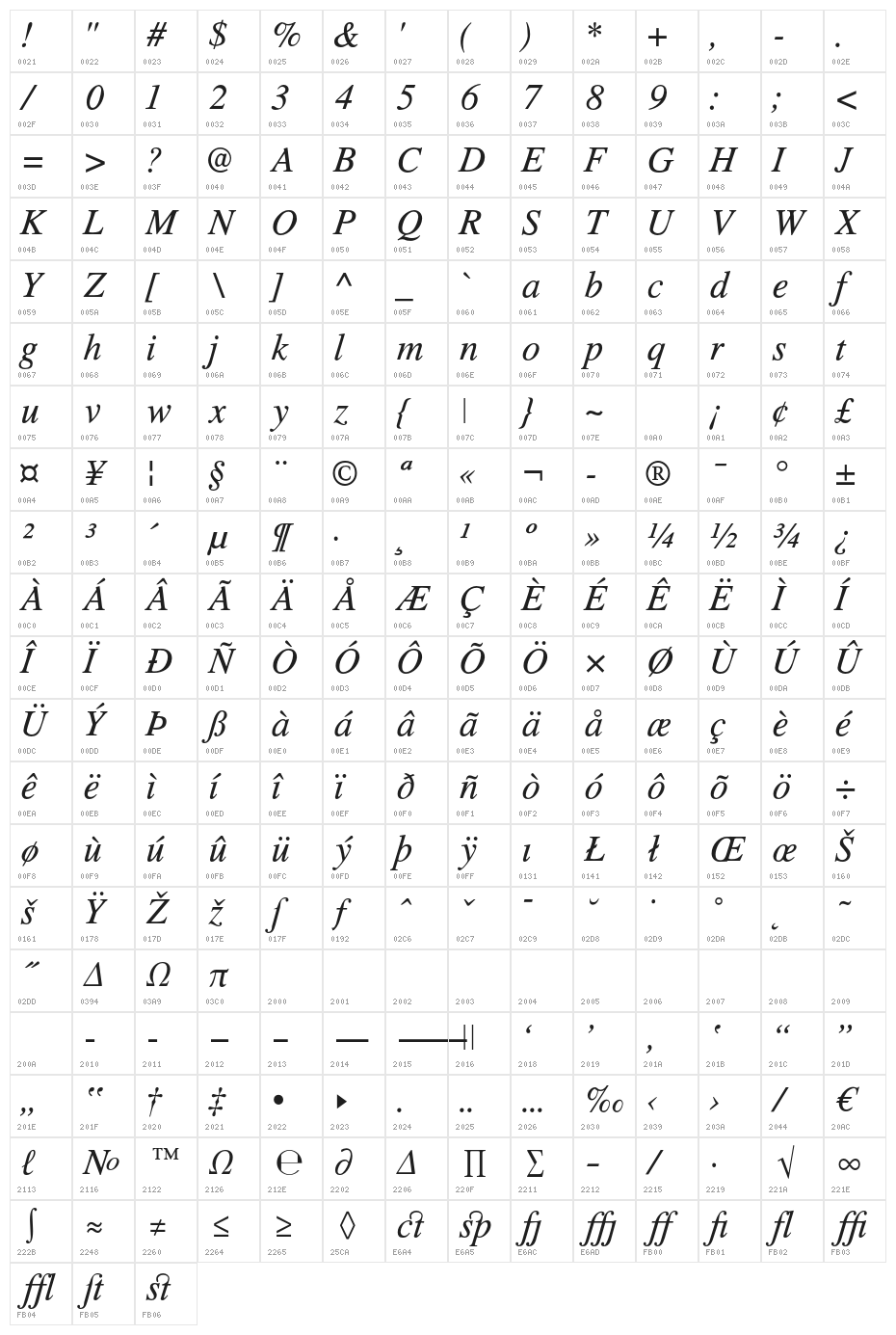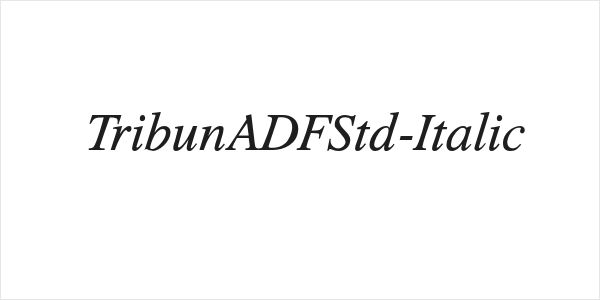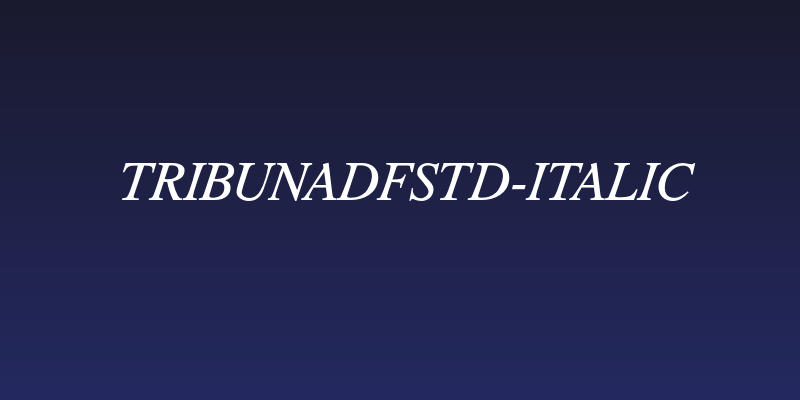
TribunADFStd-Italic Font
TribunADFStd-Italic Description
This elegant serif typeface features a classic italic style with smooth, flowing curves and a refined appearance. The letters are slightly slanted, adding a sense of motion and sophistication. The uppercase characters are well-proportioned, while the lowercase letters maintain a consistent and harmonious flow. The numerals are clear and distinct, complementing the overall design. Special characters are thoughtfully crafted, enhancing the font's versatility. The font's high contrast between thick and thin strokes adds to its readability and aesthetic appeal, making it suitable for formal and elegant designs.
| Proposed Projects | Ideal for use in formal invitations, elegant branding, editorial design, and luxury product packaging. |